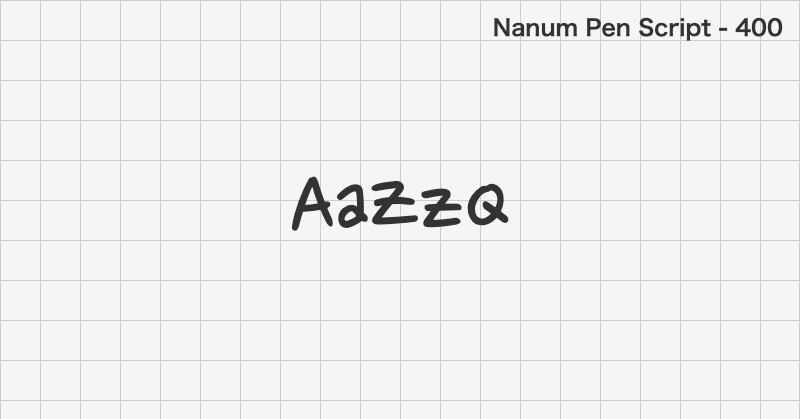
Nanum Pen Script is a contemporary pen script font designed specifically for the Korean language. It features a warm touch and is optimized for screen use, ensuring clarity and legibility.
Supports Latin and Korean, making it suitable for internationally oriented designs and text.
Nanum Pen Script was developed by Sandoll Communication, with a focus on creating a font that meets the needs of Korean script users. The design emphasizes warmth and accessibility.